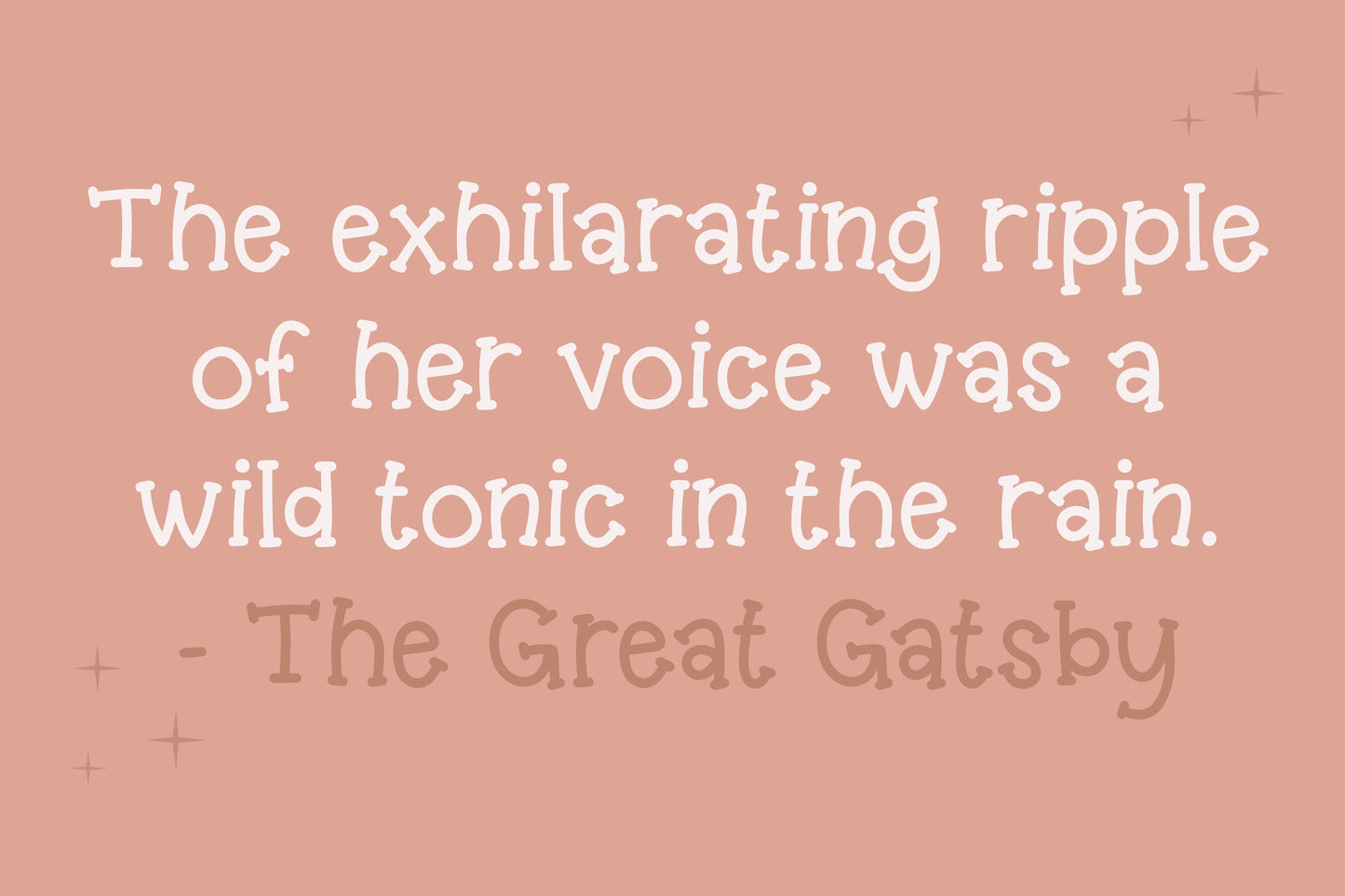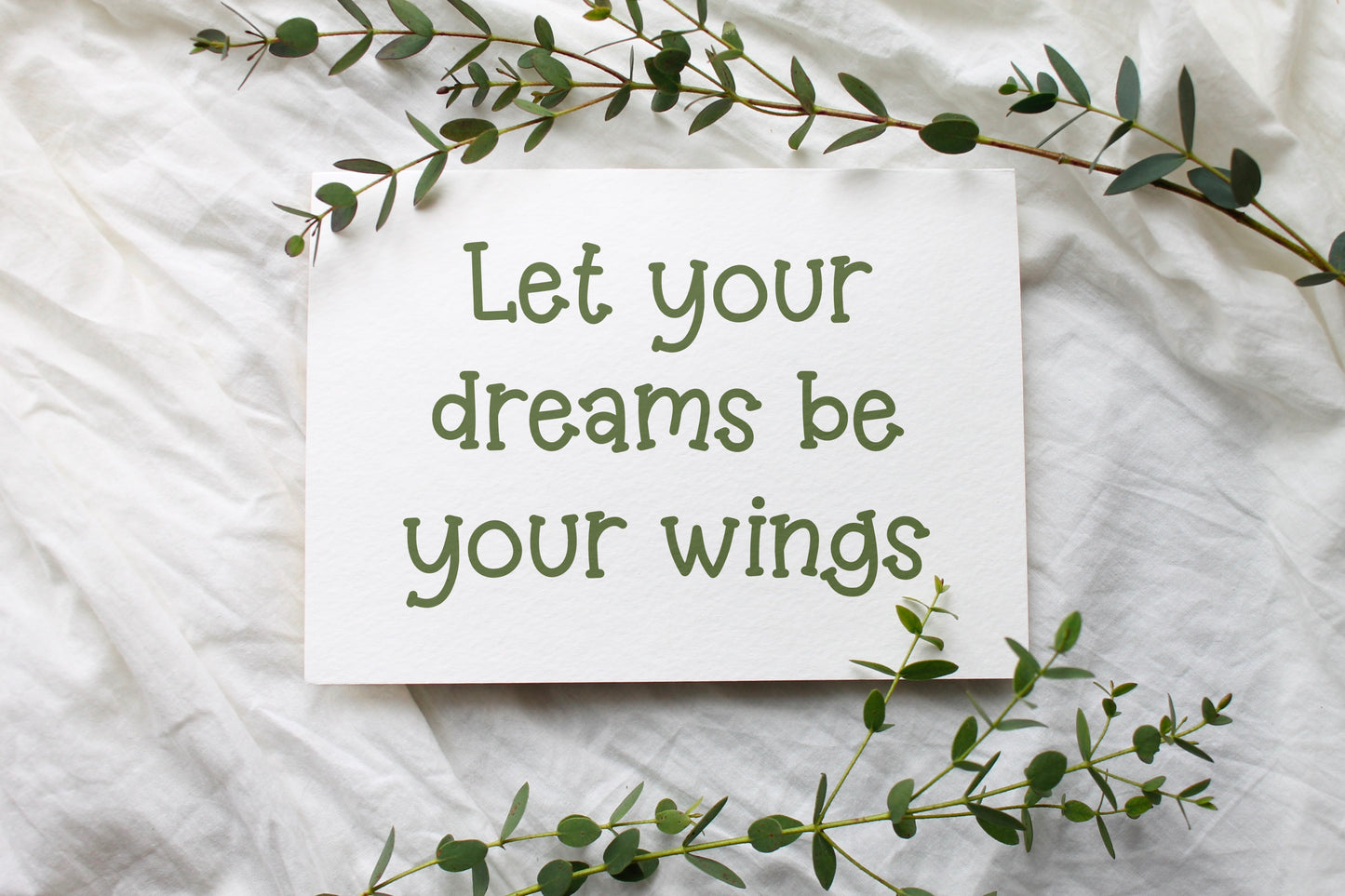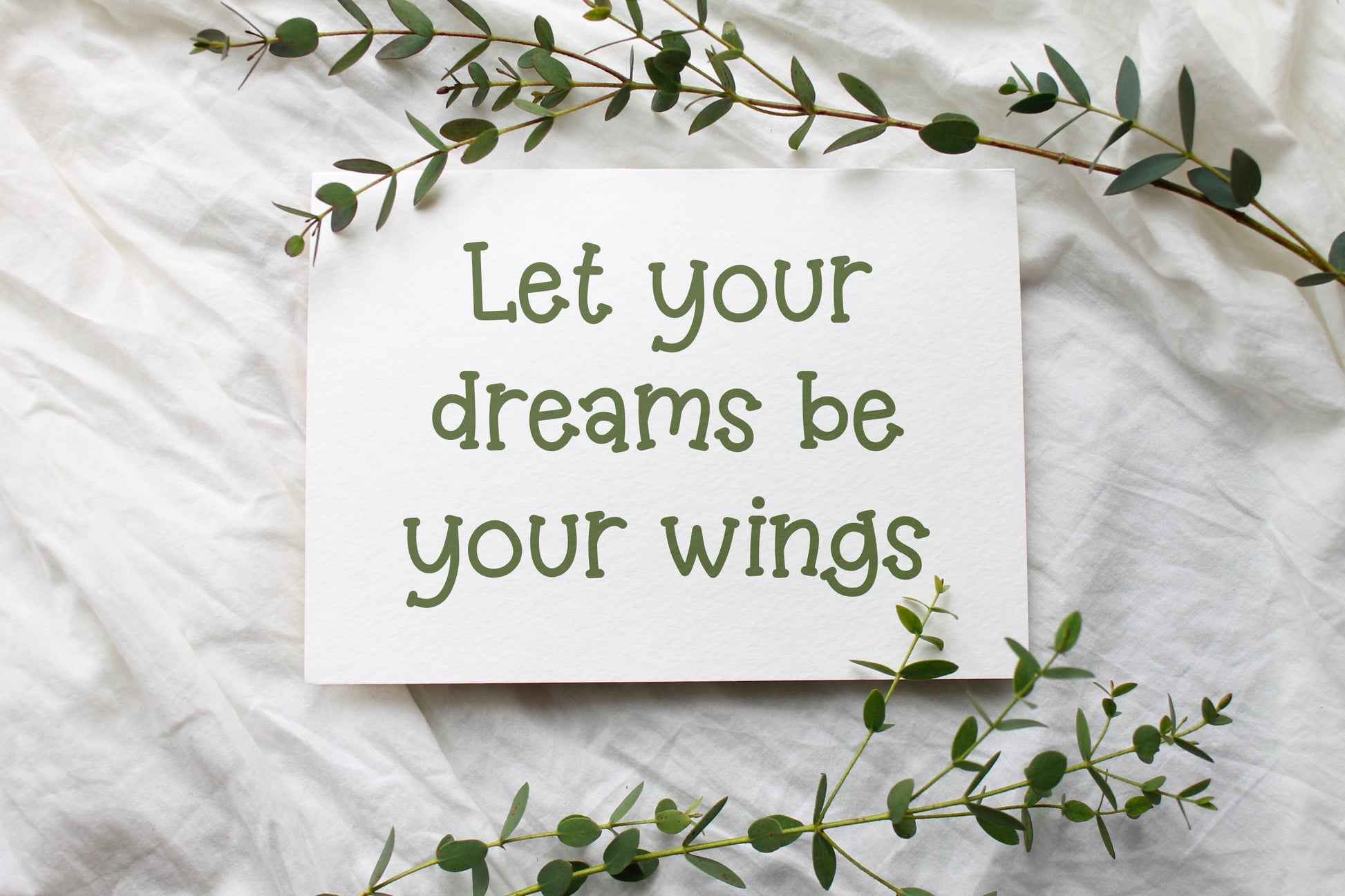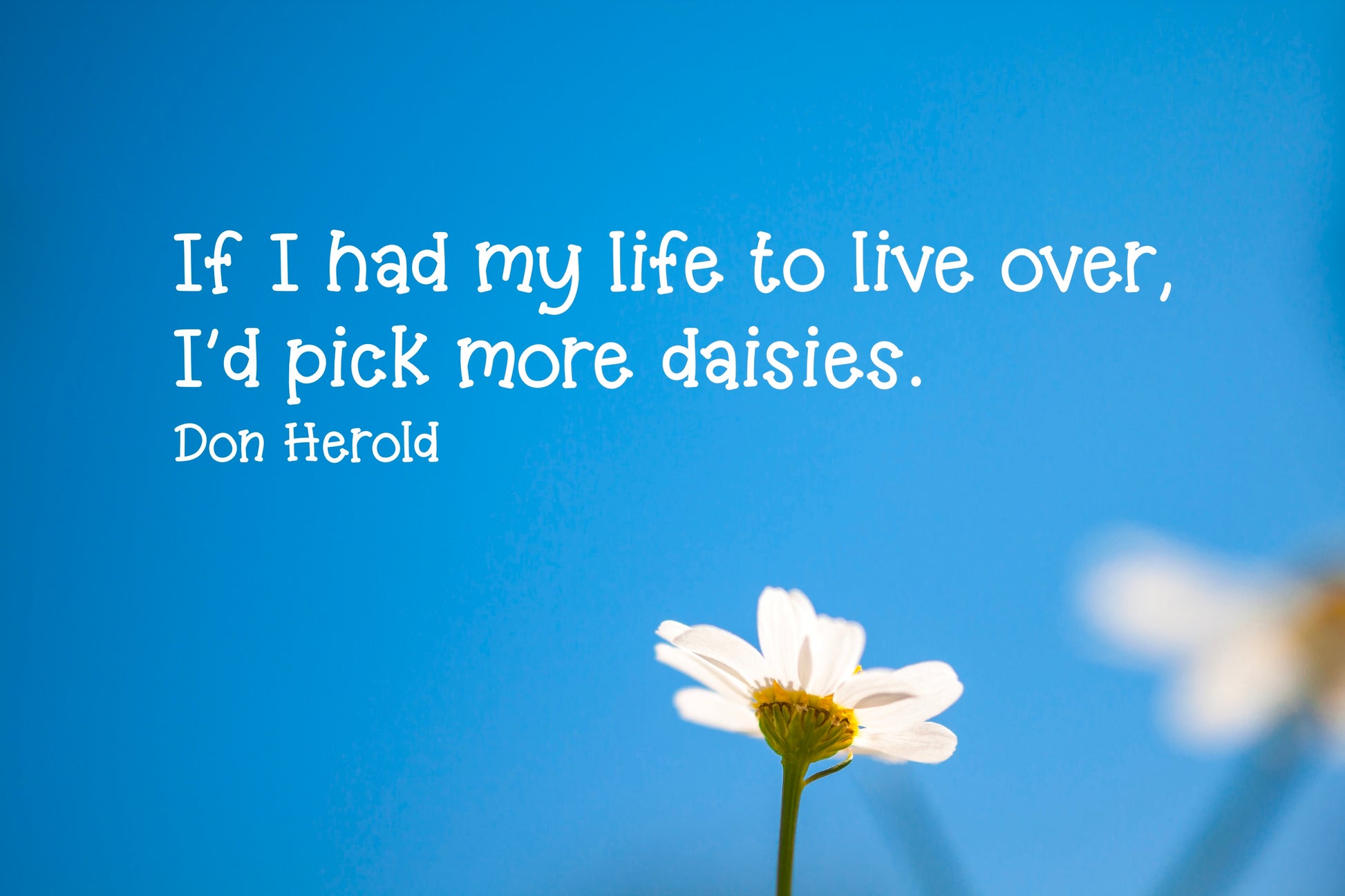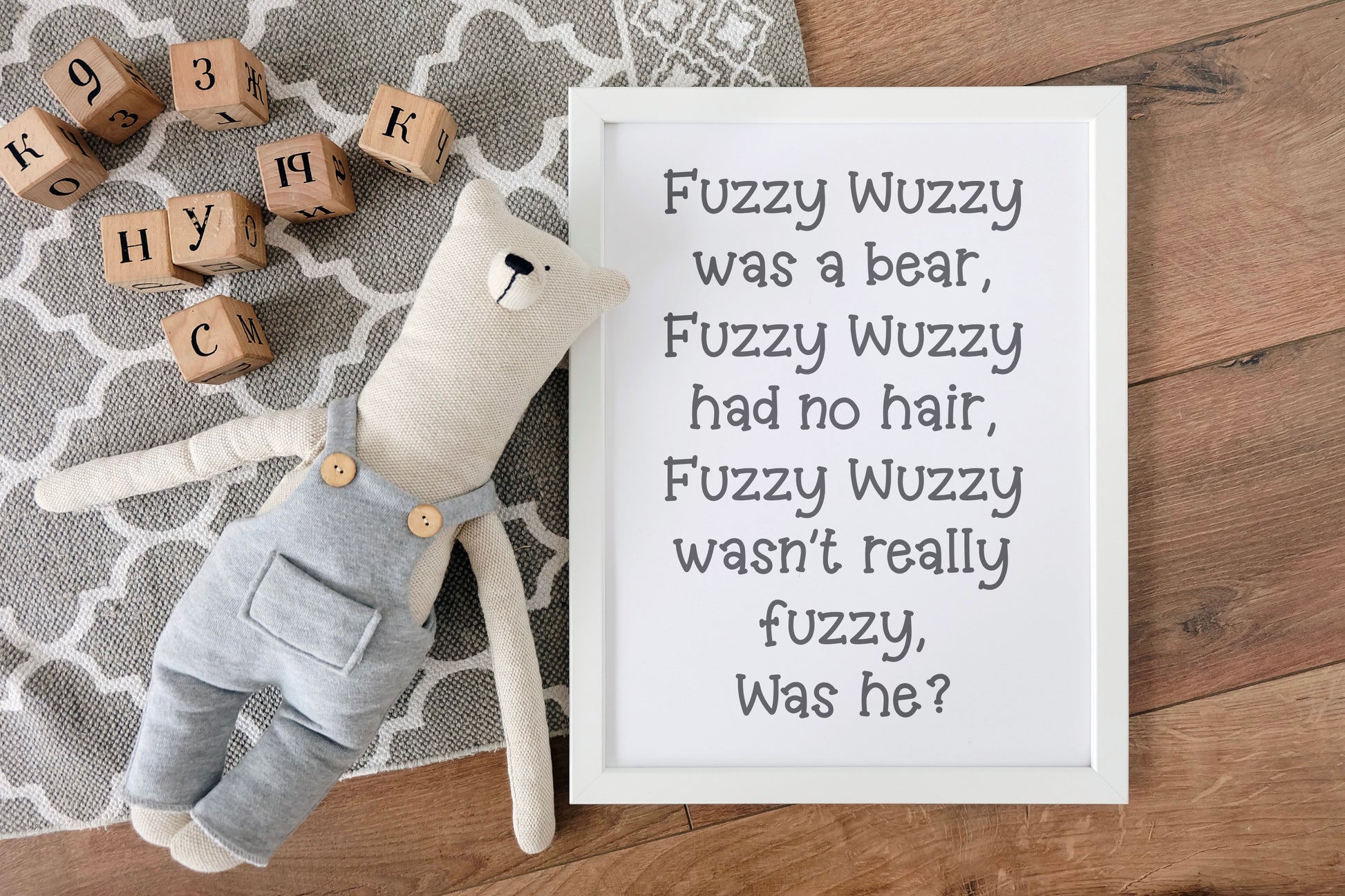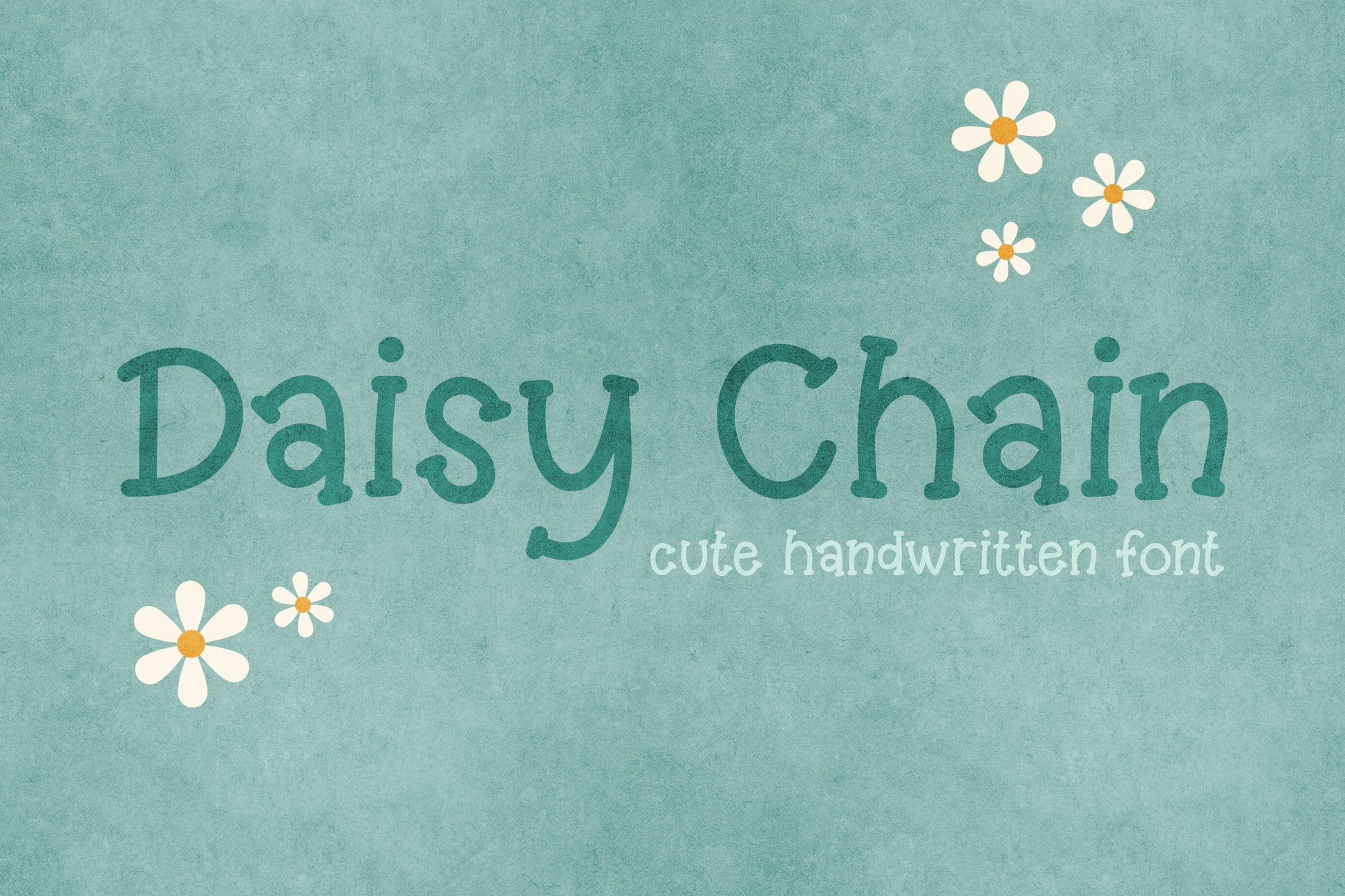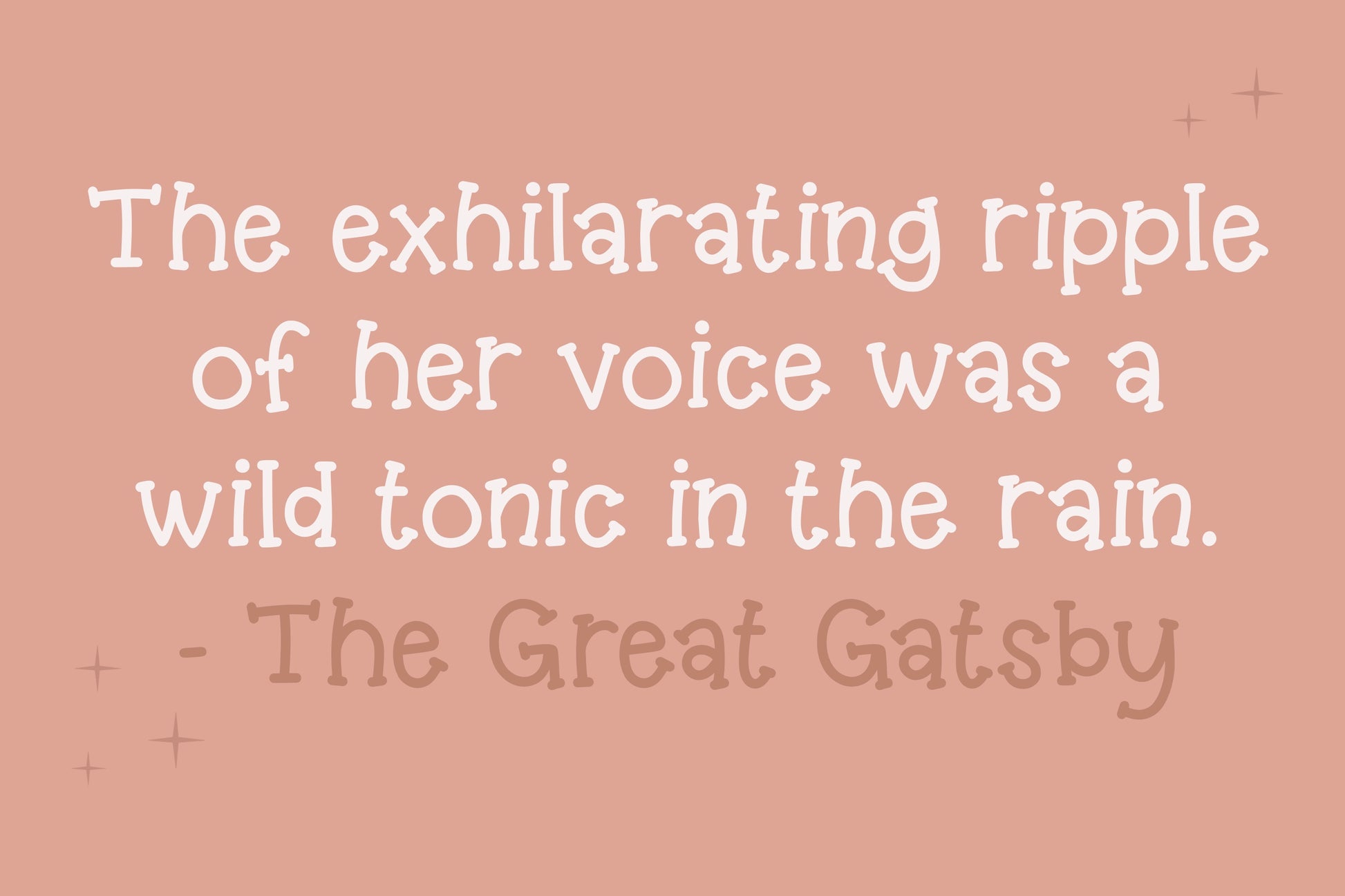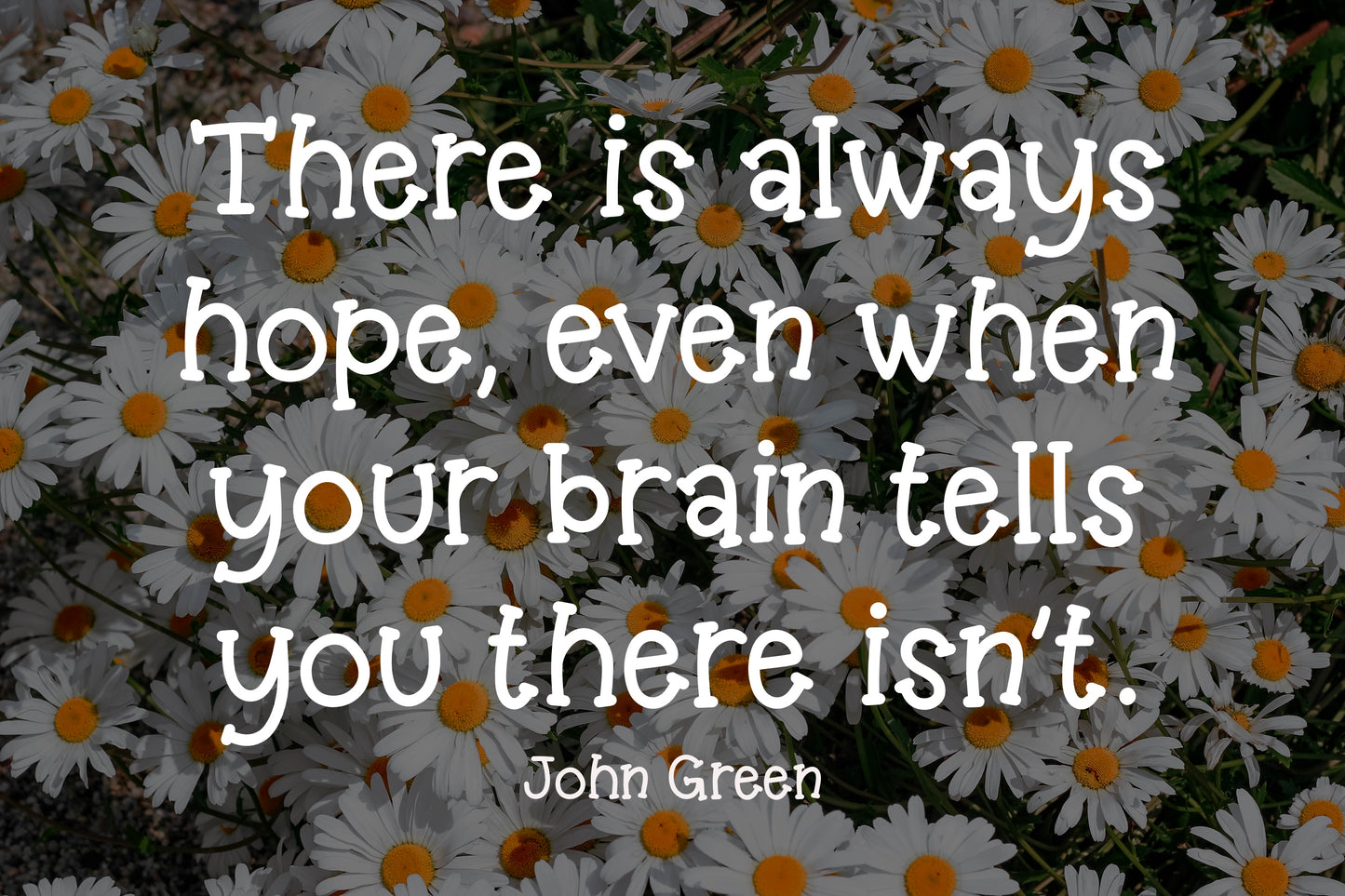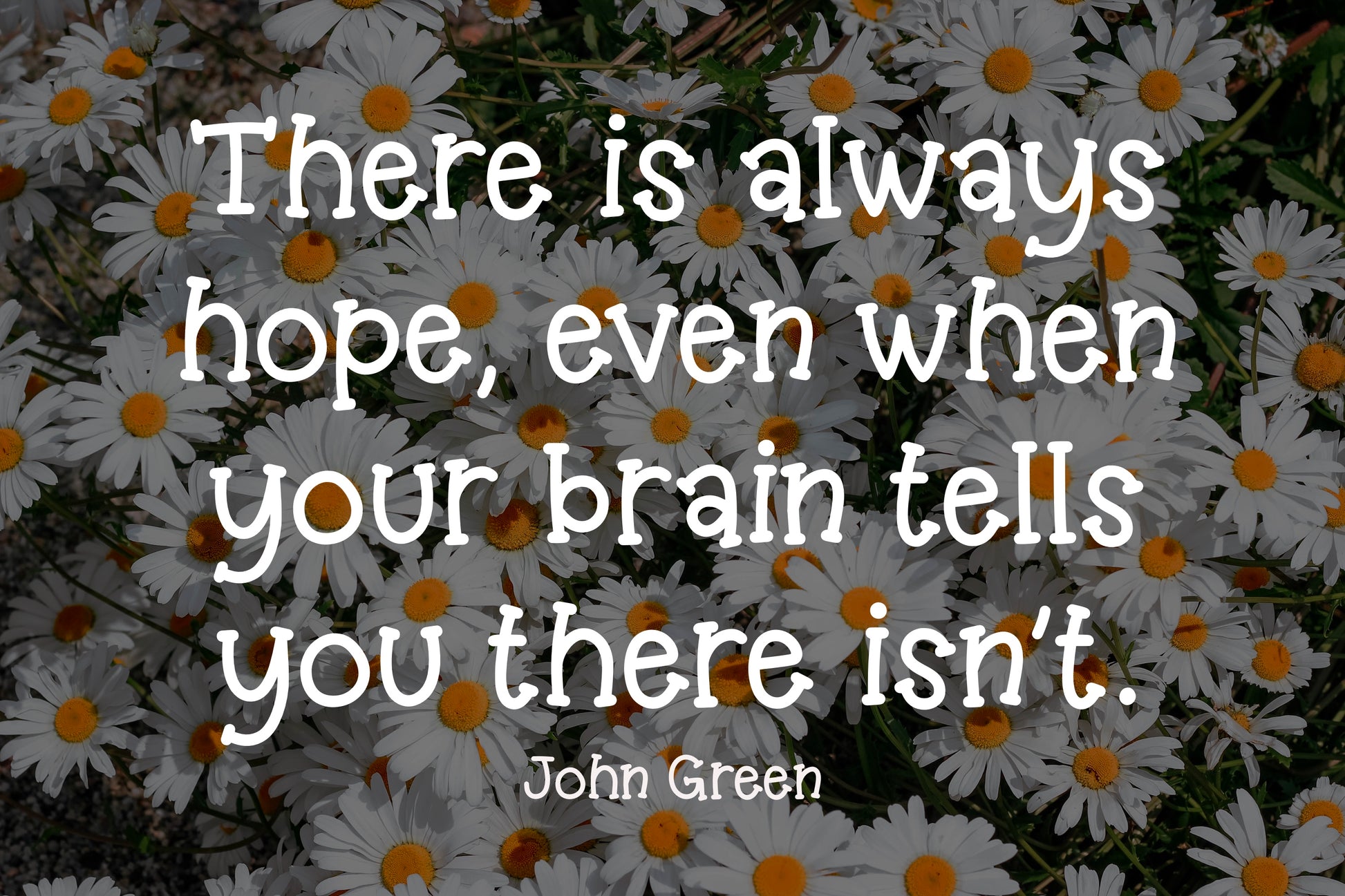
Daisy Chain Handwritten Font
Introducing the Daisy Chain handwritten font. This fun, playful hand drawn serif font is perfect for truly any occasion. It can be used for elegant invitations, casual cards, playful designs, sophisticated logos, cute stickers, longs works of writing, and anything else you can think of!